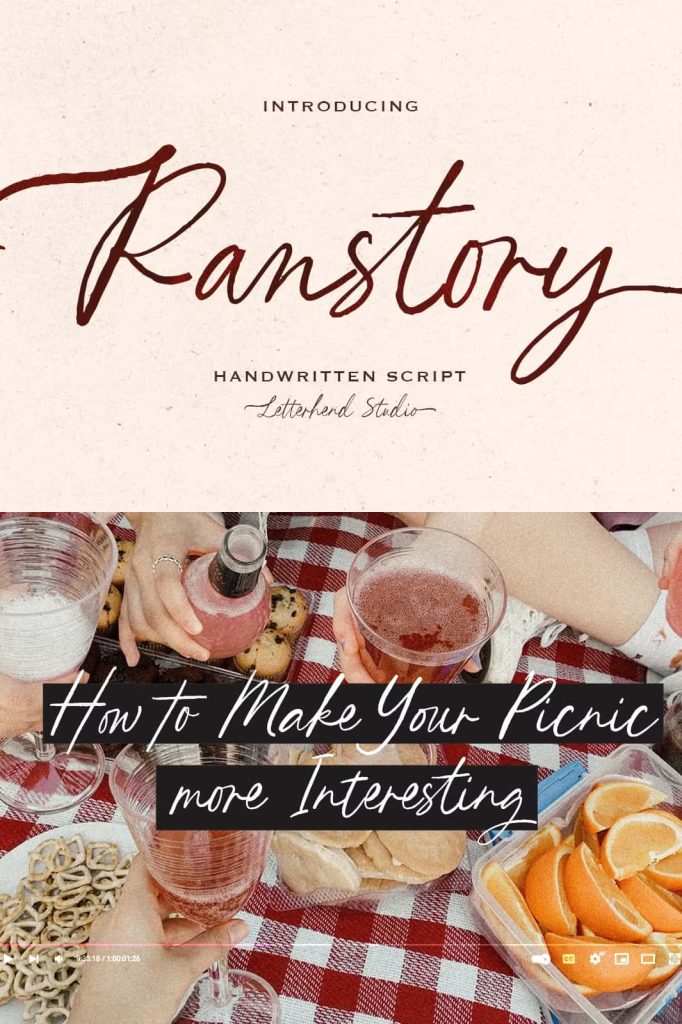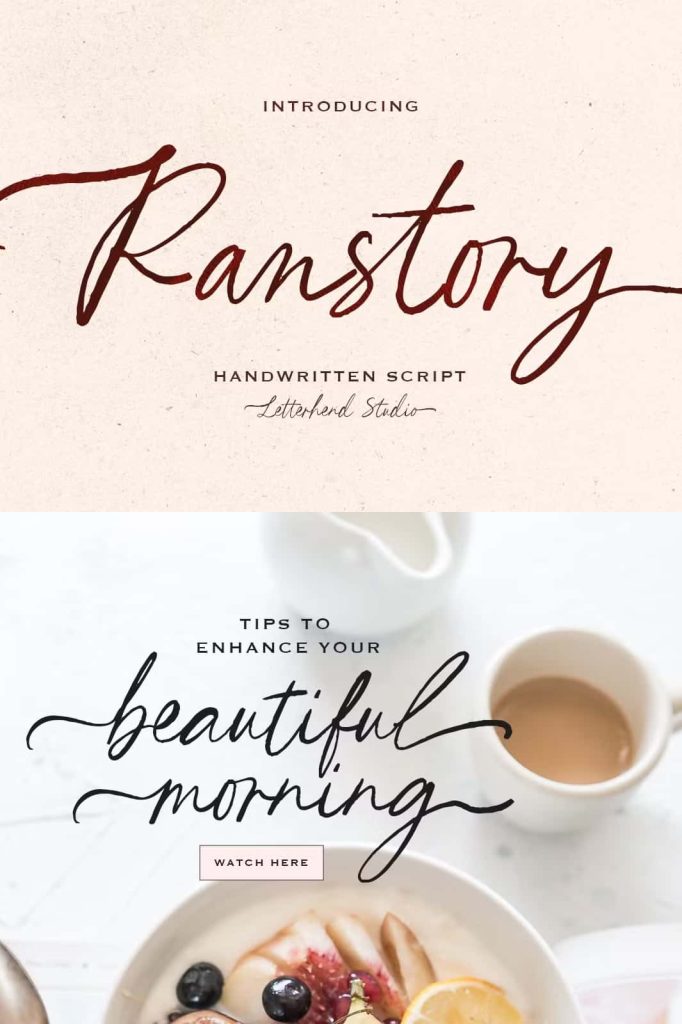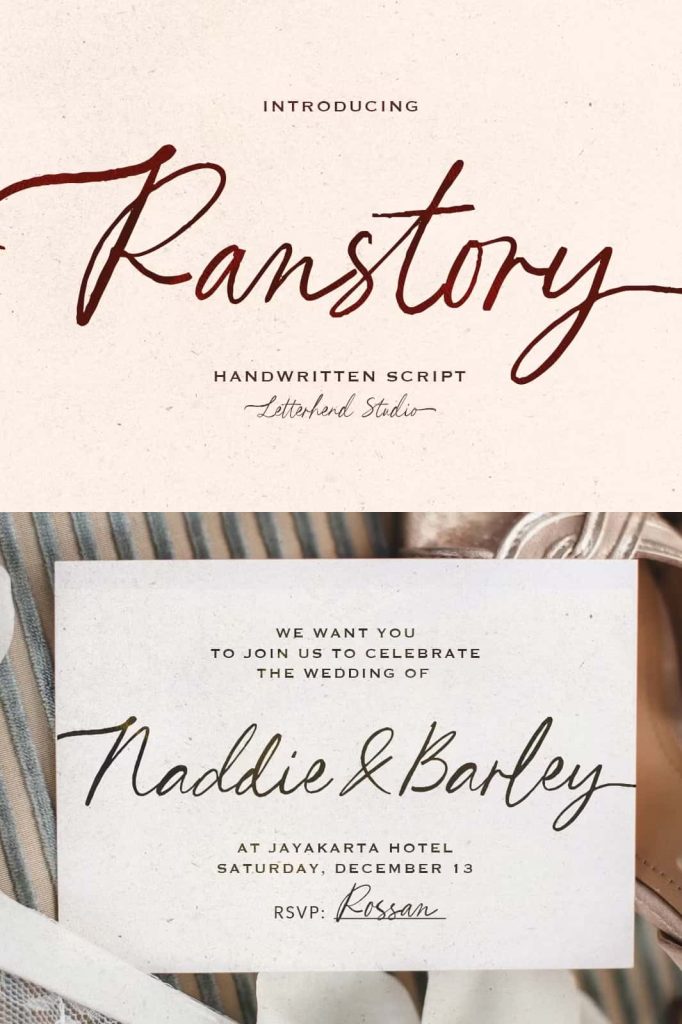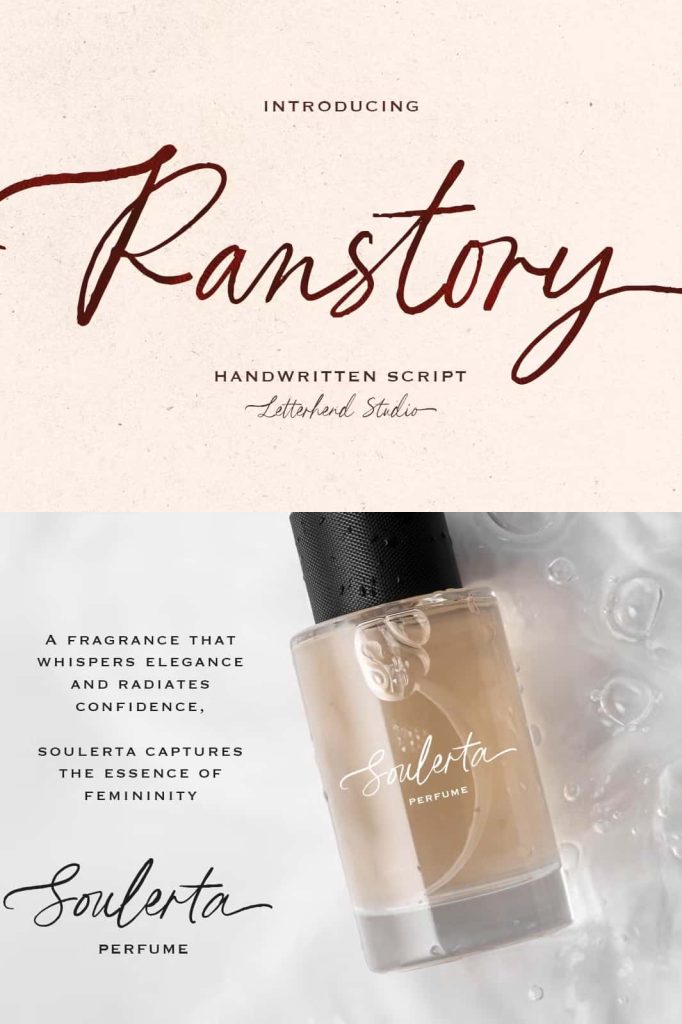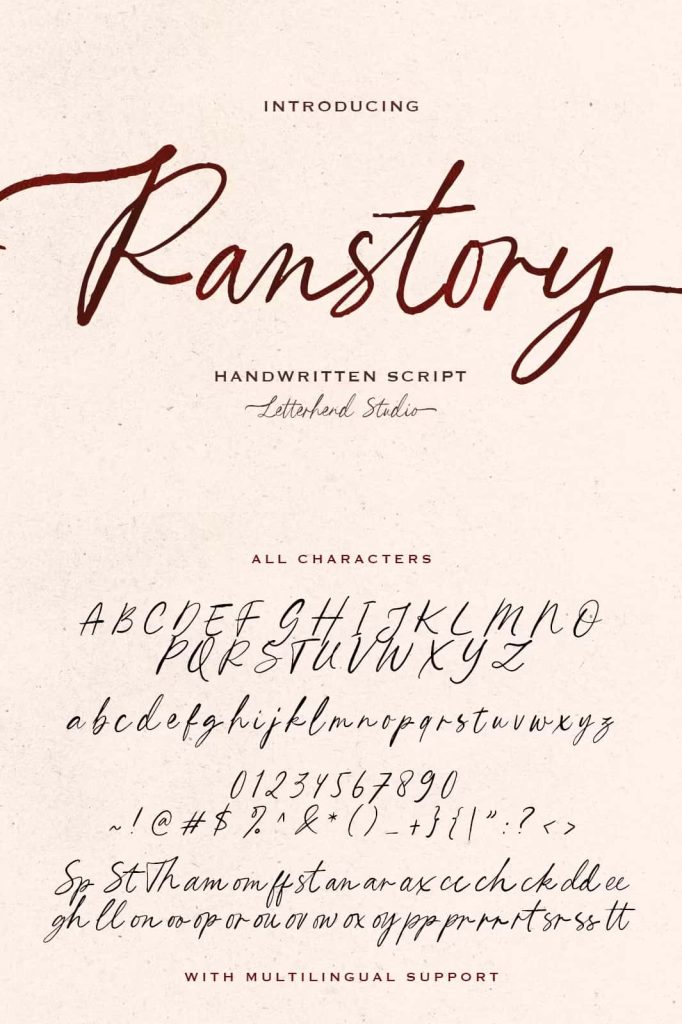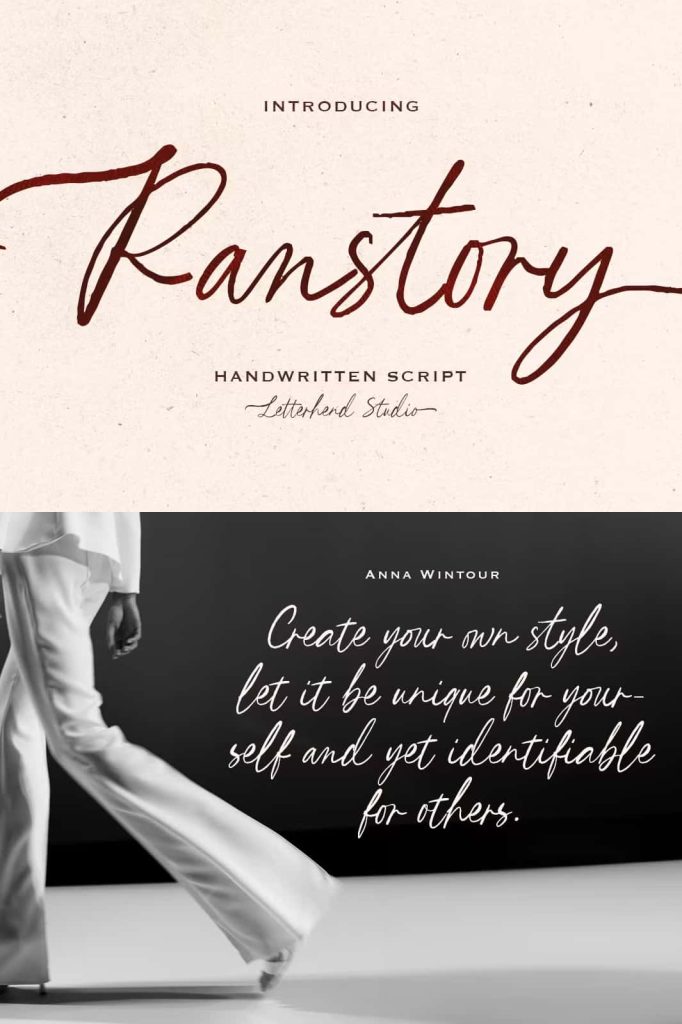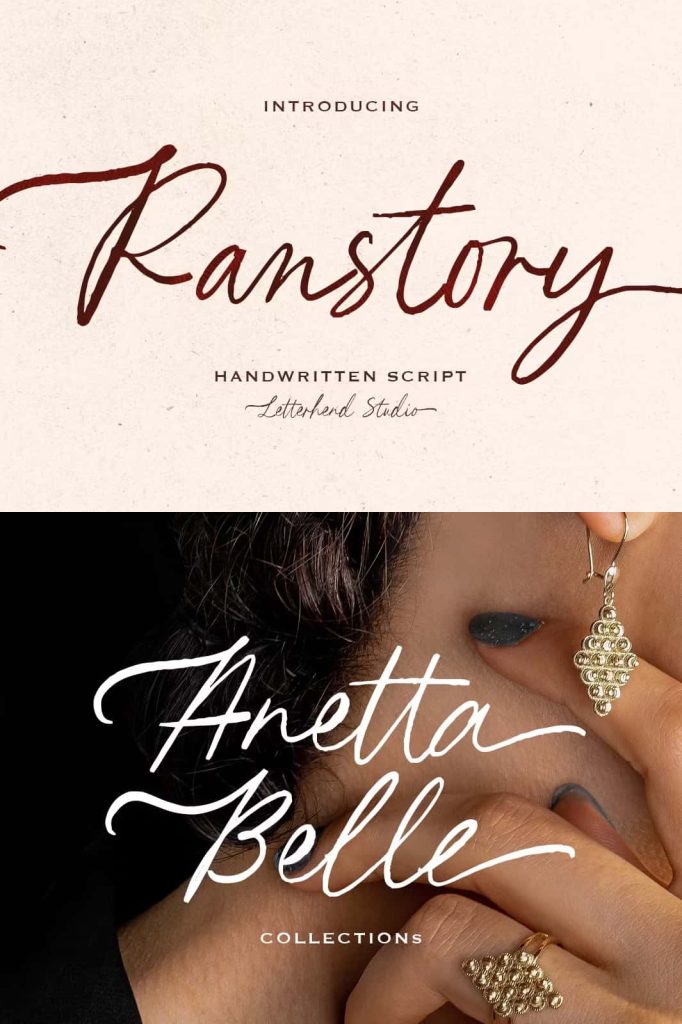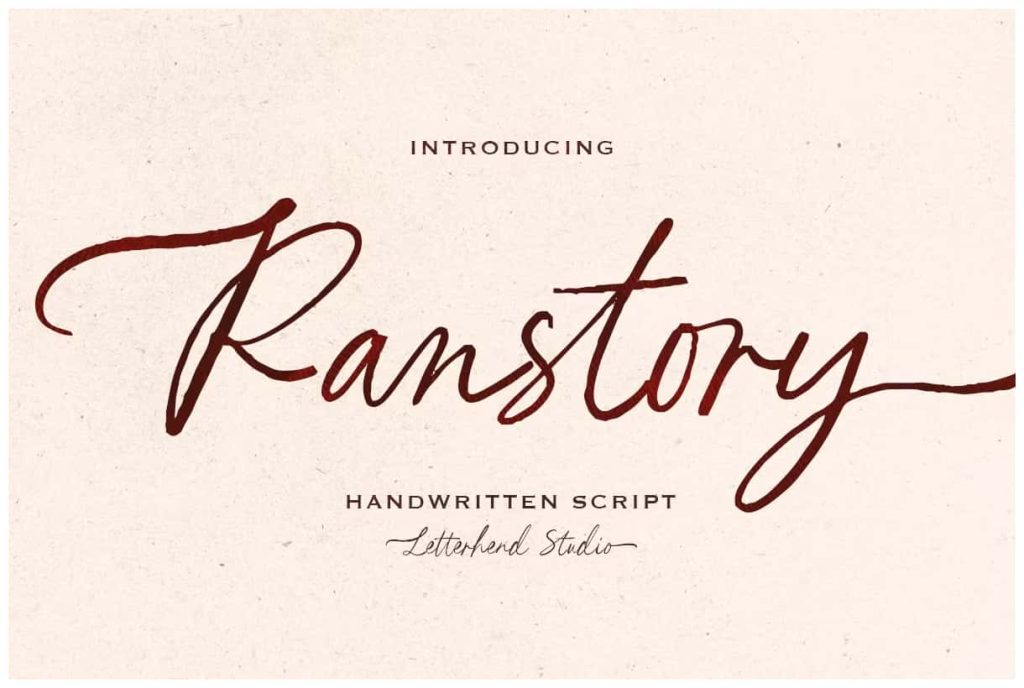
Ranstory Handwritten Script
Introducing Ranstory, a sophisticated handwritten script font with a beautifully organic feel. Crafted for designers who seek elegance and personality